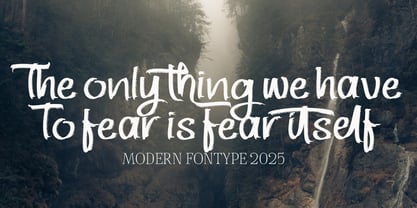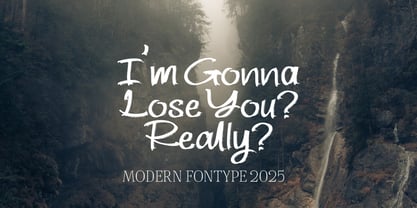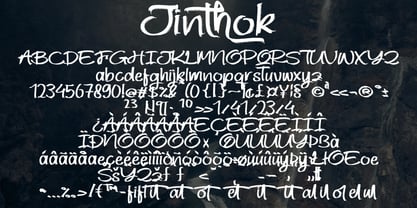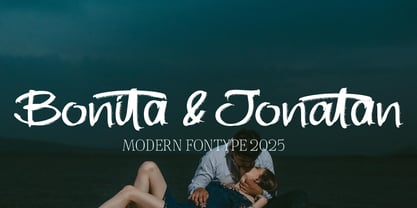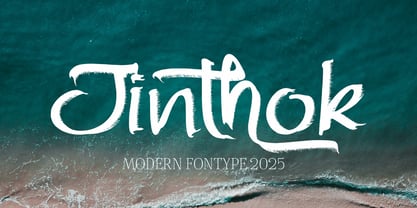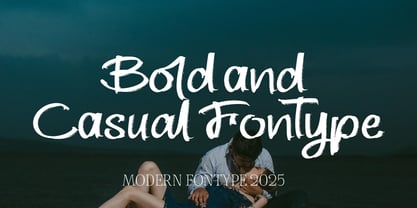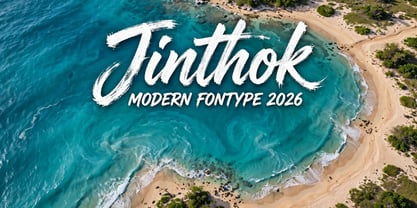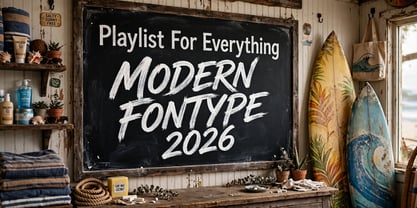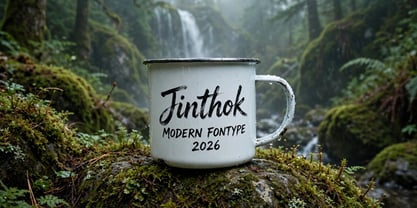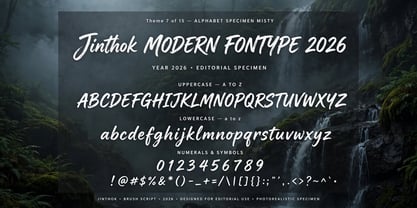
Jinthok
La familia tipográfica Jinthok fue diseñada por Kurnia Elis Setyorini y publicada por Naatypo. Jinthok contiene 1 estilos.
Jinthok is more than a font; it’s a design tool that effortlessly combines rustic appeal with timeless elegance. With its versatile usage and expressive impact, this sans serif font adorned with stamp and rough effects promises to enhance your display projects, infusing them with character and charm. It's perfect for that hand-lettered social media quote, or a bold messy look for an ad campaign.